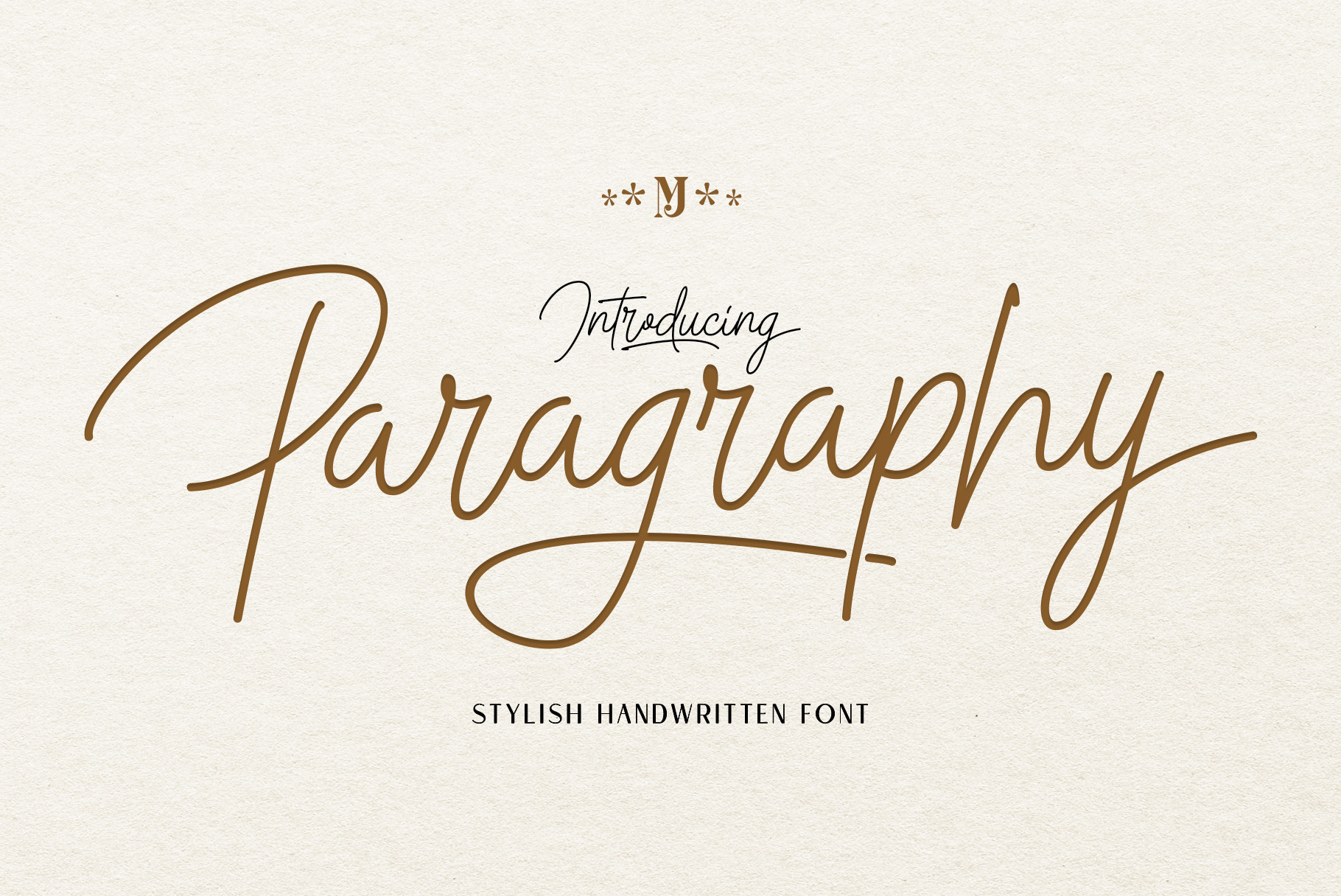
Paragraphy script font
Introducing Paragraphy – a stunning product that brings elegance and sophistication to your design projects. This exquisite script font is meticulously crafted to emulate the fluidity and grace of a handwritten signature, adding a personal touch to your creations.
With its delicate curves and intricate details, Script Font Signature exudes a sense of refinement and luxury. Whether you’re designing wedding invitations, branding materials, logos, or any other creative project, this font will elevate your work to new heights.